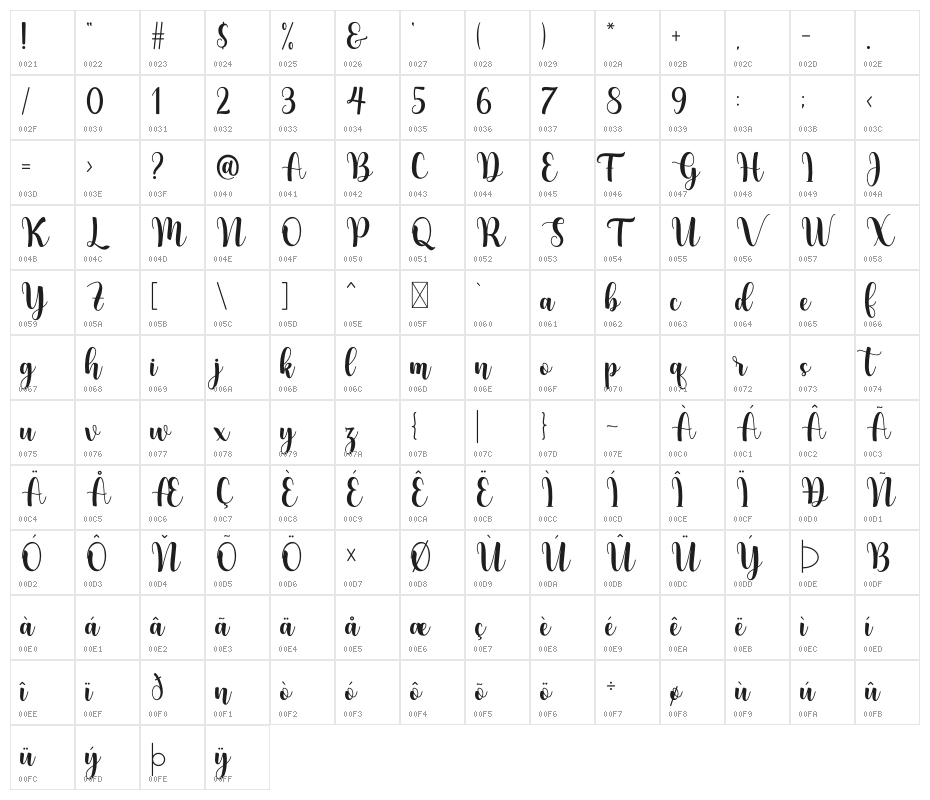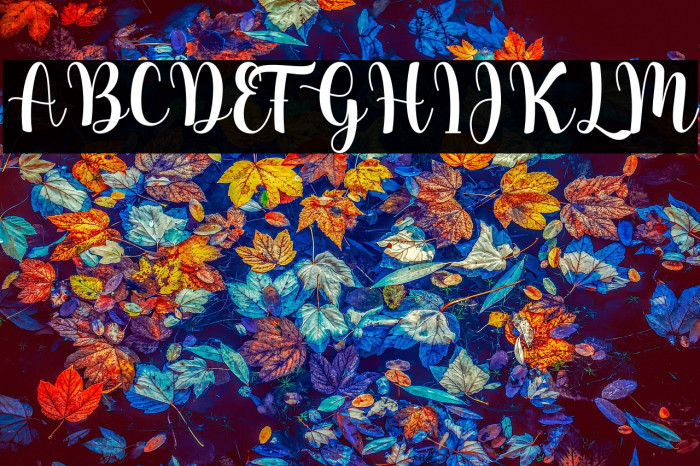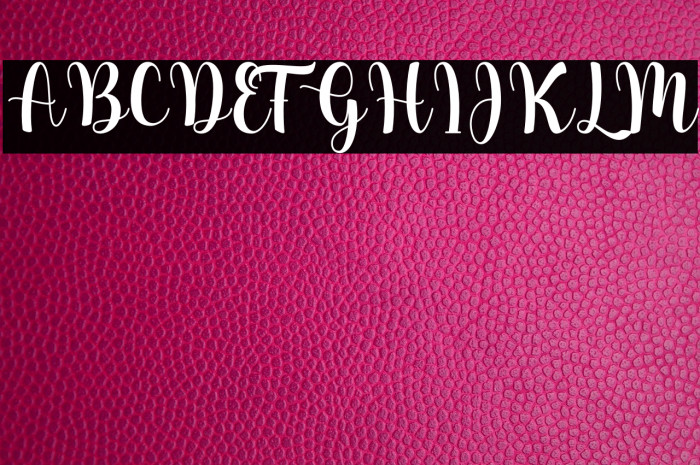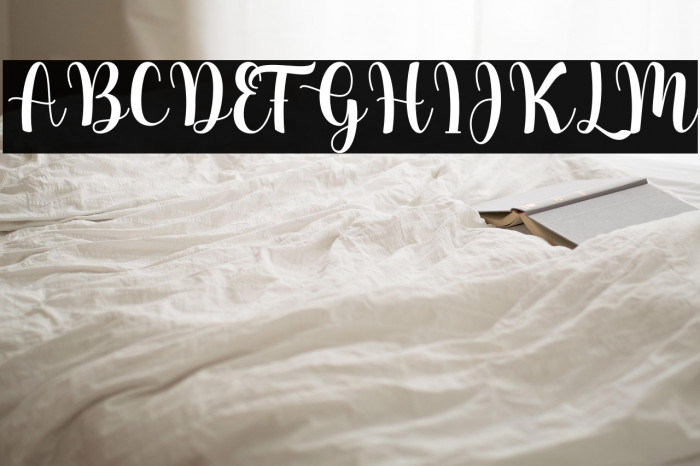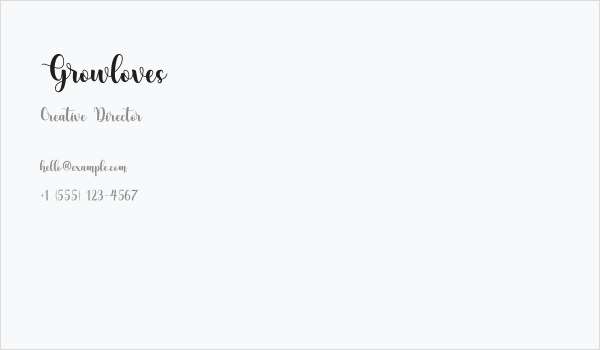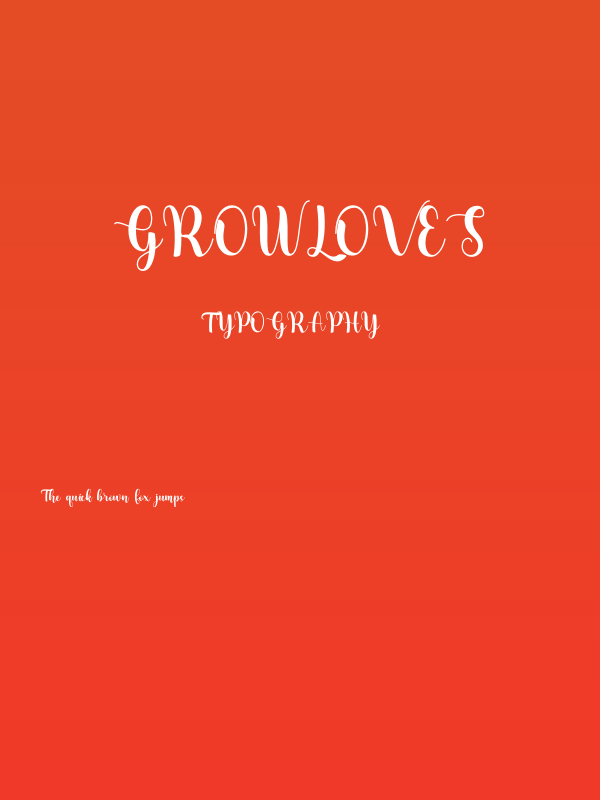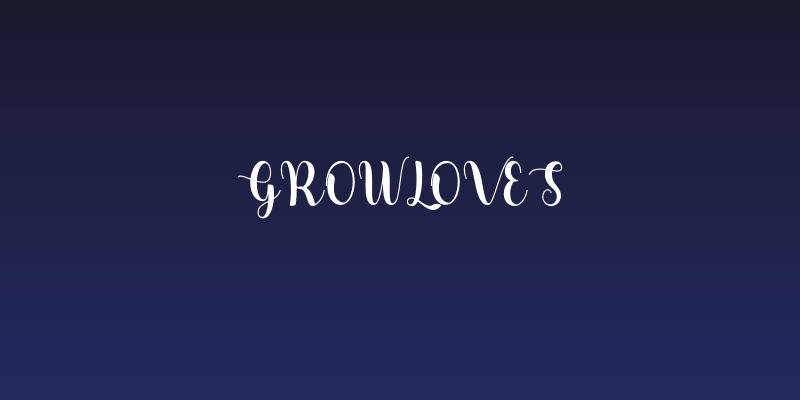
Growloves Font
Growloves Description
This font features a playful and elegant script style with a handwritten feel. The uppercase letters are characterized by their flowing, cursive forms, while the lowercase letters maintain a consistent, smooth stroke. The numbers and special characters are designed with similar fluidity, adding to the overall cohesive appearance. The font's strokes vary in thickness, providing a dynamic and lively contrast that enhances its decorative appeal. This typeface is ideal for projects that require a touch of sophistication and creativity, such as invitations, greeting cards, and branding materials.
| Use Case | Headlines, Logos, Decorative text |
| Proposed Projects | Ideal for invitations, greeting cards, branding, and decorative projects. |